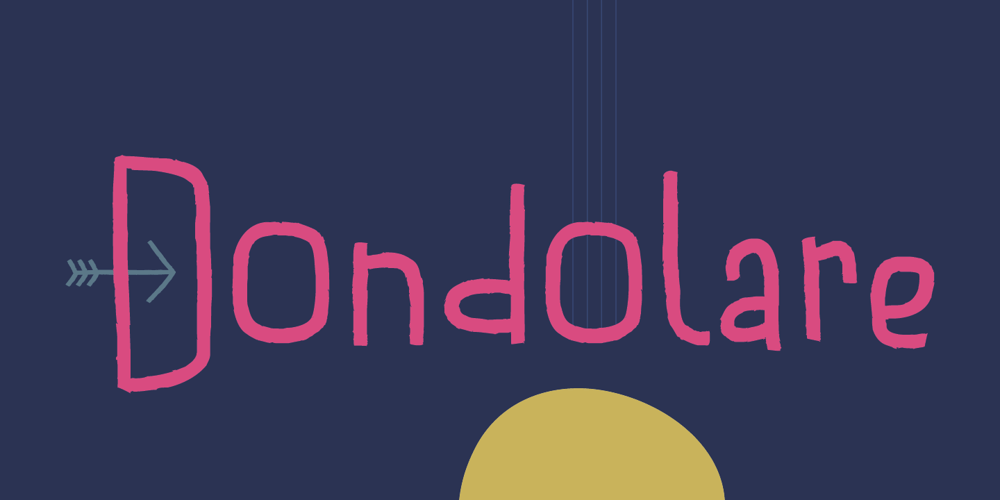
Dondolare
Dondolare font
Dondolare Font Family was designed by Dusan Jelesijevic and published by Tour De Force. Dondolare contains 2 styles and family package options. Dondolare is simple hand-drawn font family. Squarish looking and ready for typography cooking, comes in 2 weights with support for extended Latin character set.